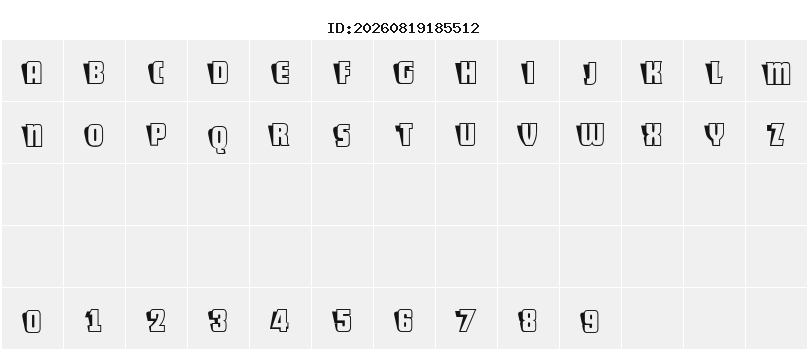
Sho-Card-Caps Preview
• Font Name: Sho-Card-Caps
• Full Font Name: Sho-Card-Caps
• PostScript Name: Sho-Card-Caps
About Sho-Card-Caps.ttf
Sho-Card-Caps.ttf is a modern, elegant sans-serif font designed for ultimate readability and visual harmony. Perfect for branding, headlines, web design, and print materials.